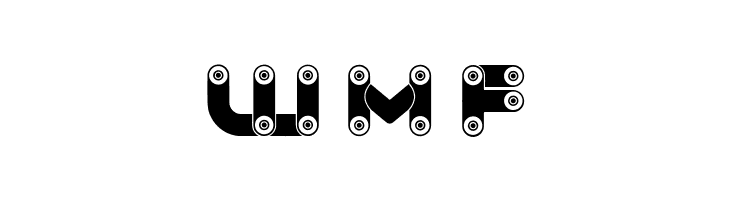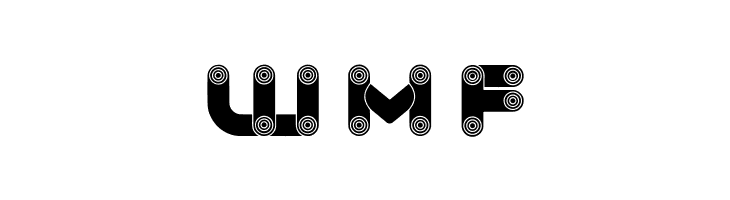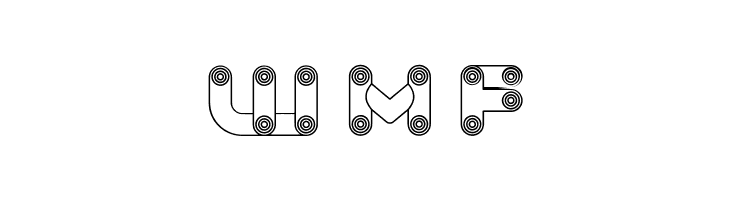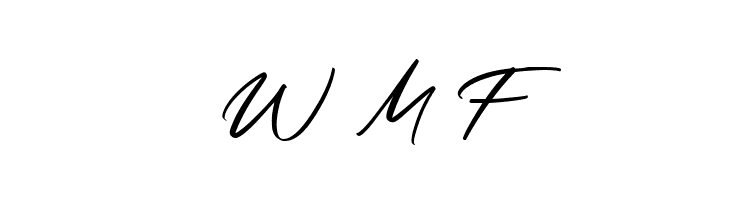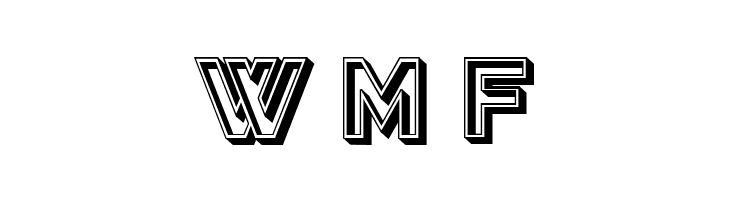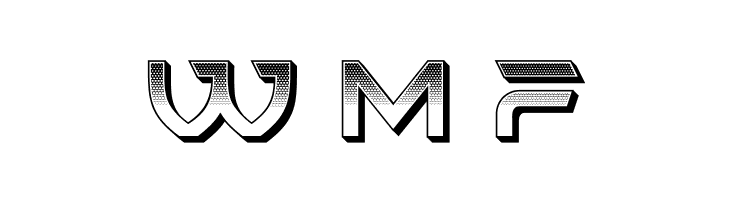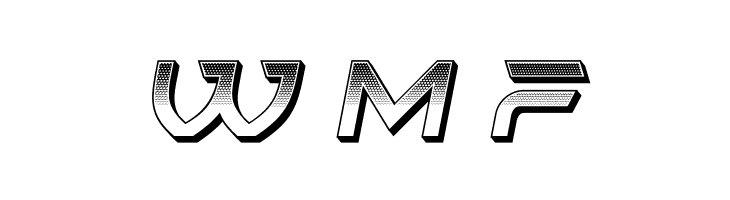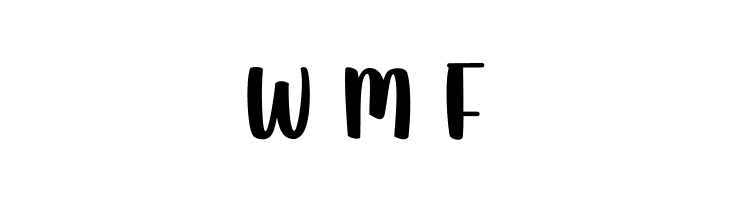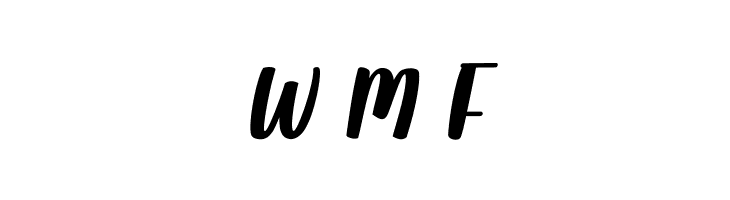
A bold, italic font with a dynamic and playful style.
A bold, playful font with rounded, thick strokes and a friendly appearance.
A bold, expressive script font with a dynamic, handwritten style.
An elegant, cursive font with flowing, interconnected letters and ornate flourishes.
An elegant, italicized script font with flowing, connected strokes.
A dynamic, brush-style cursive font with a hand-drawn appearance.
A playful, bold font with rounded edges and a hand-drawn style.
A delicate and elegant script font with flowing, thin strokes.
A bold, playful display font with artistic and whimsical elements.
A playful, artistic font with abstract facial elements in each letter.
A bold, playful script font with a smooth, handwritten style.
A dynamic and elegant script font with fluid, cursive strokes.
A dynamic, cursive handwritten font with fluid strokes and elegant connections.
A bold, fiery font with dynamic flame-like accents.
A flowing, cursive font with elegant, interconnected strokes.
A bold, playful font with rounded edges and a whimsical style.
A playful, bold font with rounded edges and a hand-drawn feel.
A bold, italic script font with dynamic strokes and close spacing.
A bold, geometric font with a 3D effect and vintage-modern appeal.
A bold, italicized font with a futuristic, three-dimensional effect.
A bold, futuristic font with a 3D effect and geometric styling.
A playful and elegant cursive font with flowing, slender characters.
A graceful and elegant handwritten script with flowing, interconnected letterforms.
A bold, brush-style font with an energetic, hand-painted look.
A bold, dynamic brush script font with expressive strokes.
A bold, playful handwritten font with smooth, rounded strokes.
A bold, decorative font with rounded shapes and intricate patterns.
A bold, playful font with circular, gear-like embellishments on each character.
A modern, hollow, geometric font with rounded edges and consistent line thickness.
A playful, decorative font with hollow, spiral-like elements resembling snail shells.
A playful, hollow font with rounded, tubular characters and bold outlines.
A bold, decorative font with playful spiral patterns.
A playful, rounded font with a whimsical and creative style.
A playful, handwritten font with bold, rounded letters and a casual style.